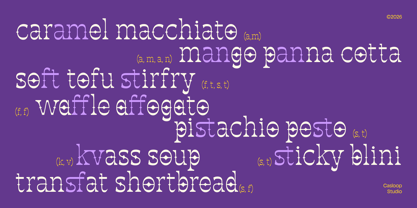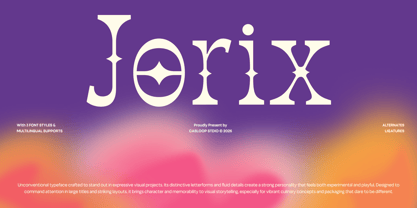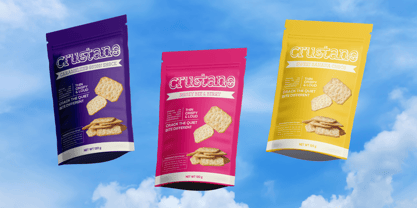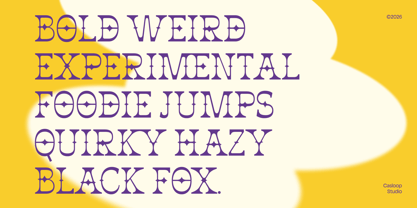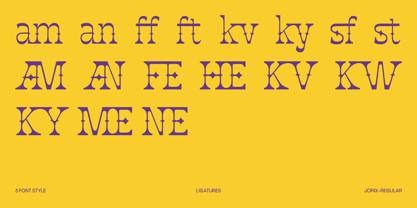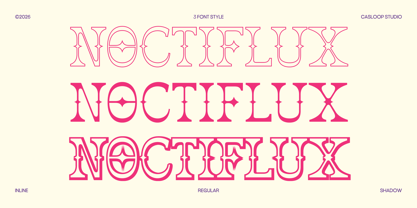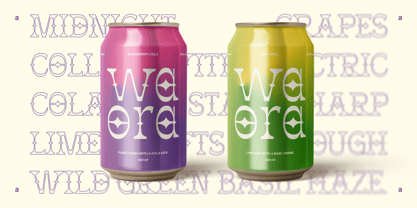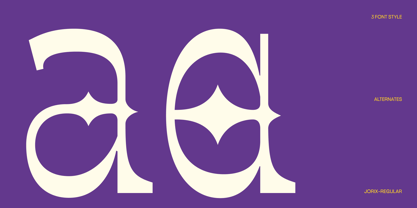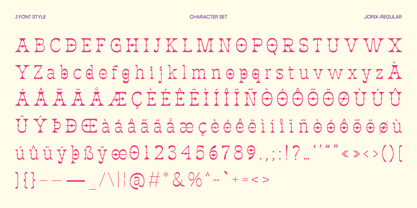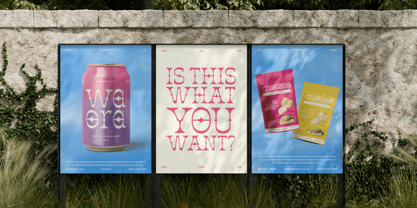
Jorix
by Casloop Studio
The Jorix Font Family was designed by Wantara Putra and published by Casloop Studio. Jorix contains 3 styles and family package options. More about this family
Jorix is ​​a flowing, experimental display font, Its main feature lies in its treatment of the key characters O, A, E, S, and R, where star-like shapes penetrate the inner space of the letters, creating a sharp contrast between the classic serif foundation and the unexpected graphic intervention. The tension between structure and distortion gives Jorix a striking and unconventional presence, making it ideal for creative agencies, branding systems, food visuals, headlines and identity projects that demand uniqueness, visual impact and a fearlessly experimental tone. Recommended pairing with: Space Grotesk, DM Sans, Archivo, Helvetica Neue, Futura, Franklin Gothic. Features : * Uppercase & Lowercase * Numbers and punctuation * Ligatures & Stylistic Alternates Characters Multilingulal Support: Bosnian, Catalan, Czech, Danish, German, English, Spanish, Estonian, Finnish, French, Irish, Croatian, Hungarian, Icelandic, Italian, Lithuanian, Latvian, Dutch, Norwegian, Polish, Portuguese, Romanian, Slovak, Slovenian, Albanian, Swedish, Turkish.
Designers: Wantara Putra
Current Foundry: Casloop Studio